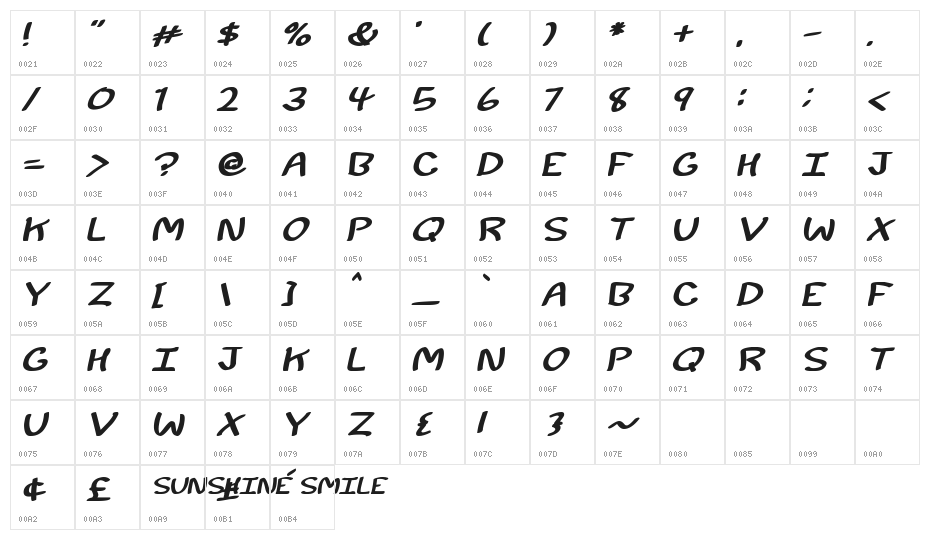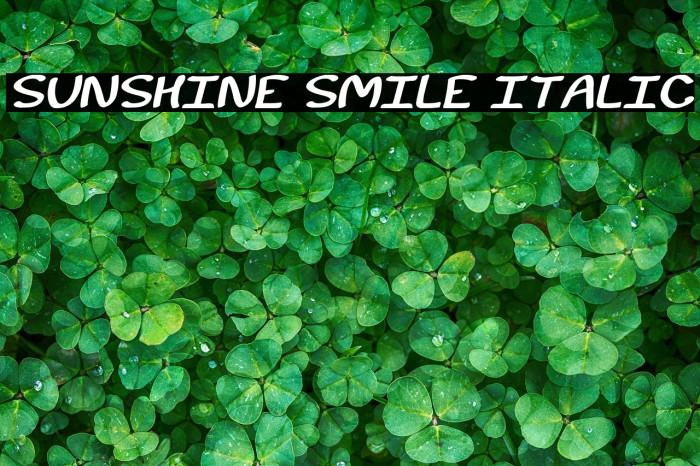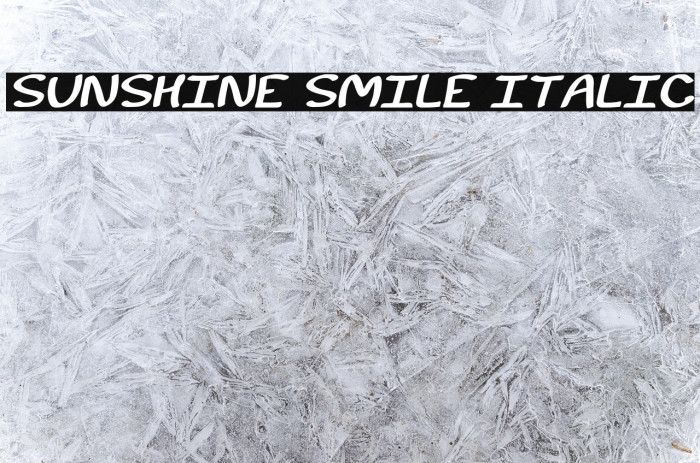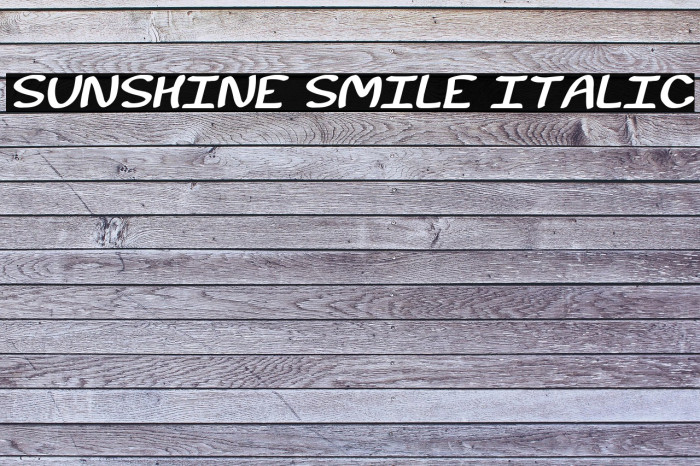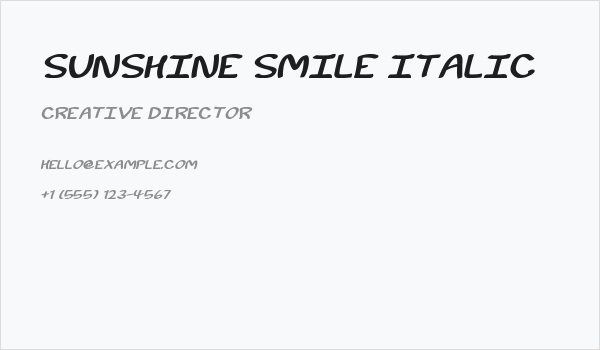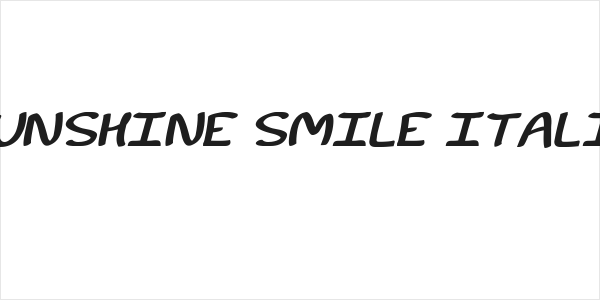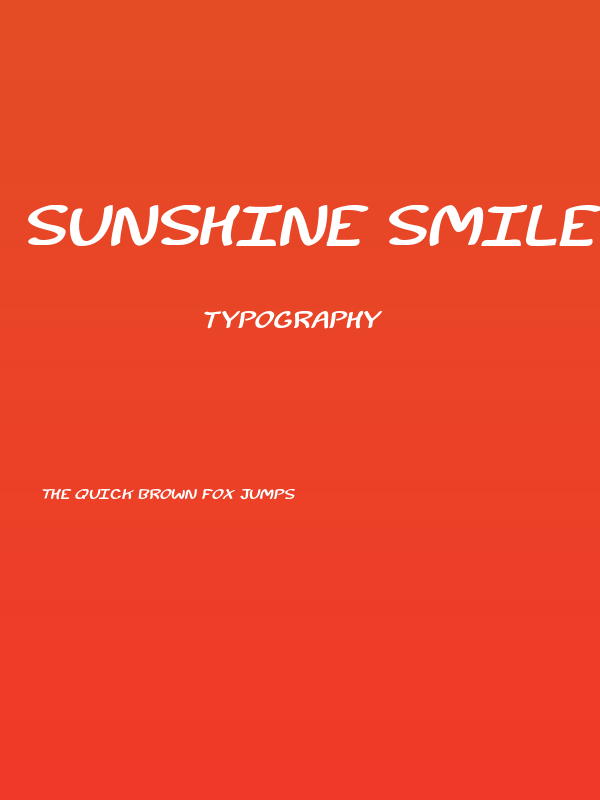
Sunshine Smile Italic Font
Sunshine Smile Italic Description
This font features a playful and energetic style with a handwritten appearance. The letters are slightly slanted, giving it an italicized look that adds a sense of motion and liveliness. The strokes are bold and rounded, creating a friendly and approachable feel. The characters are well-spaced, ensuring readability while maintaining a casual aesthetic. This font is perfect for projects that require a personal touch, such as invitations, greeting cards, or playful branding materials.
| Proposed Projects | Ideal for invitations, greeting cards, playful branding, and casual designs. |